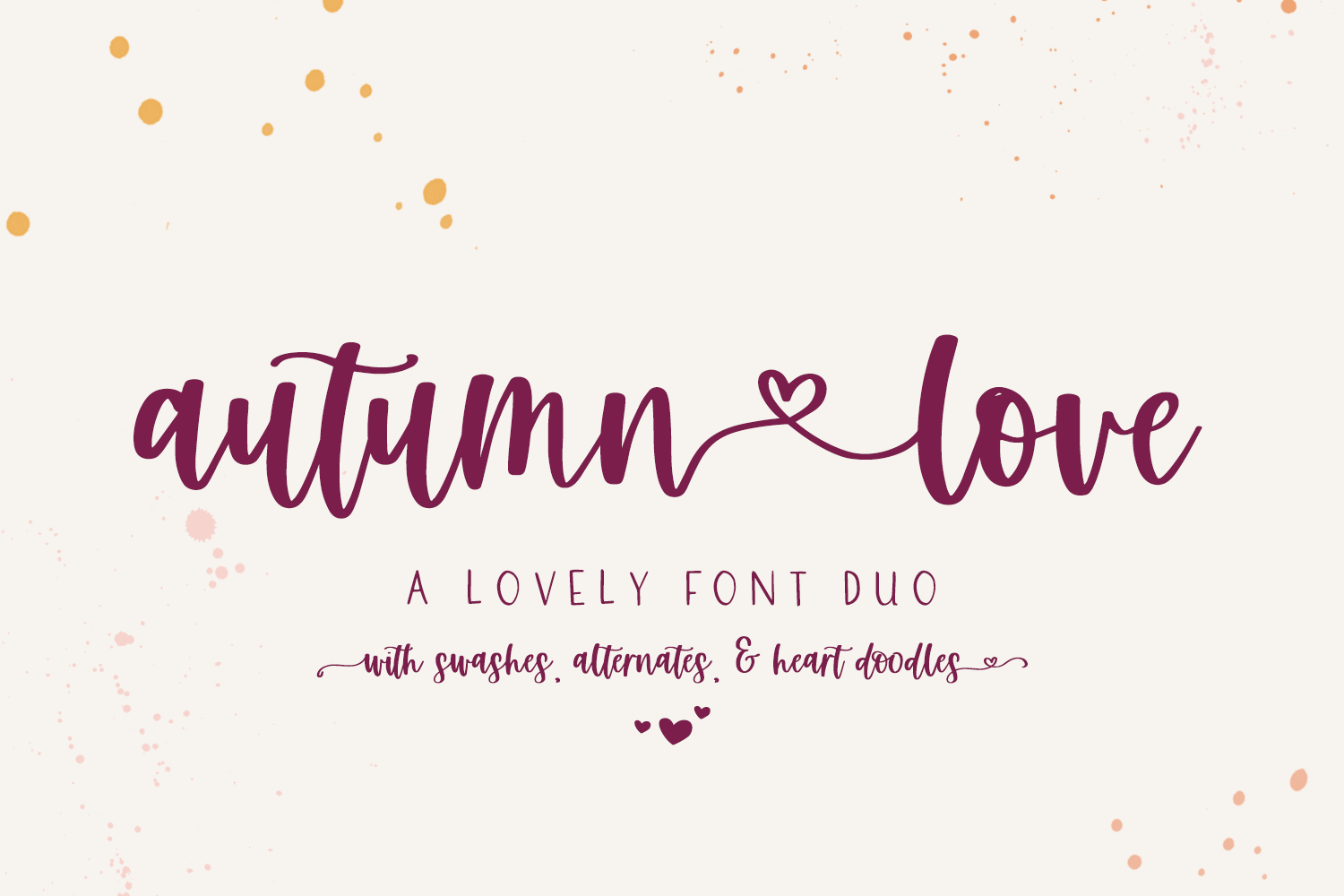
Hello, Autumn Love!
Autumn Love is a new font duo, pairing a sweet, bouncy calligraphy script with a handwriting-style sans font. Let’s not forget the best features - swashes & hearts! There are so many ways to customize your text! Add left & right swashes to your text, or use the heart connector, or use the heart doodles included in the script font! Since Autumn Love Script is already perfectly paired with its Sans partner, this duo gives you everything you need to create beautiful designs like wedding invitations, shirt designs, social graphics, brands, & more!
- full upper + lowercase characters (both fonts)
- numbers + punctuation (both fonts)
- 132 alternate lowercase characters comprised of left & right swirly swashes, left & right heart swashes, heart connectors, and i & j characters “dotted” with a heart
- 8 heart doodles
- 11 ligatures - bb, dd, ff, gg, ll, mm, nn, oo, rr, ss, tt